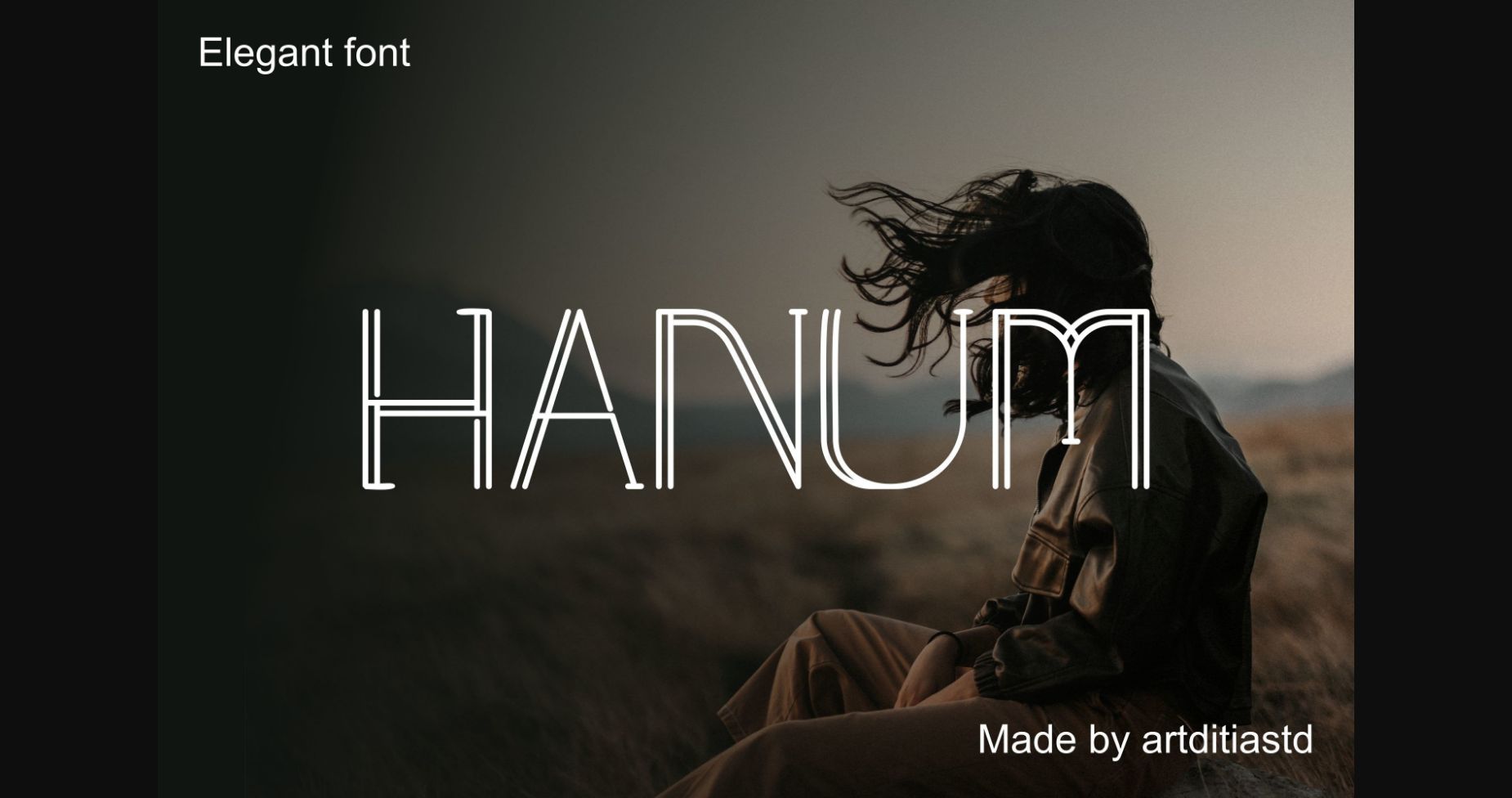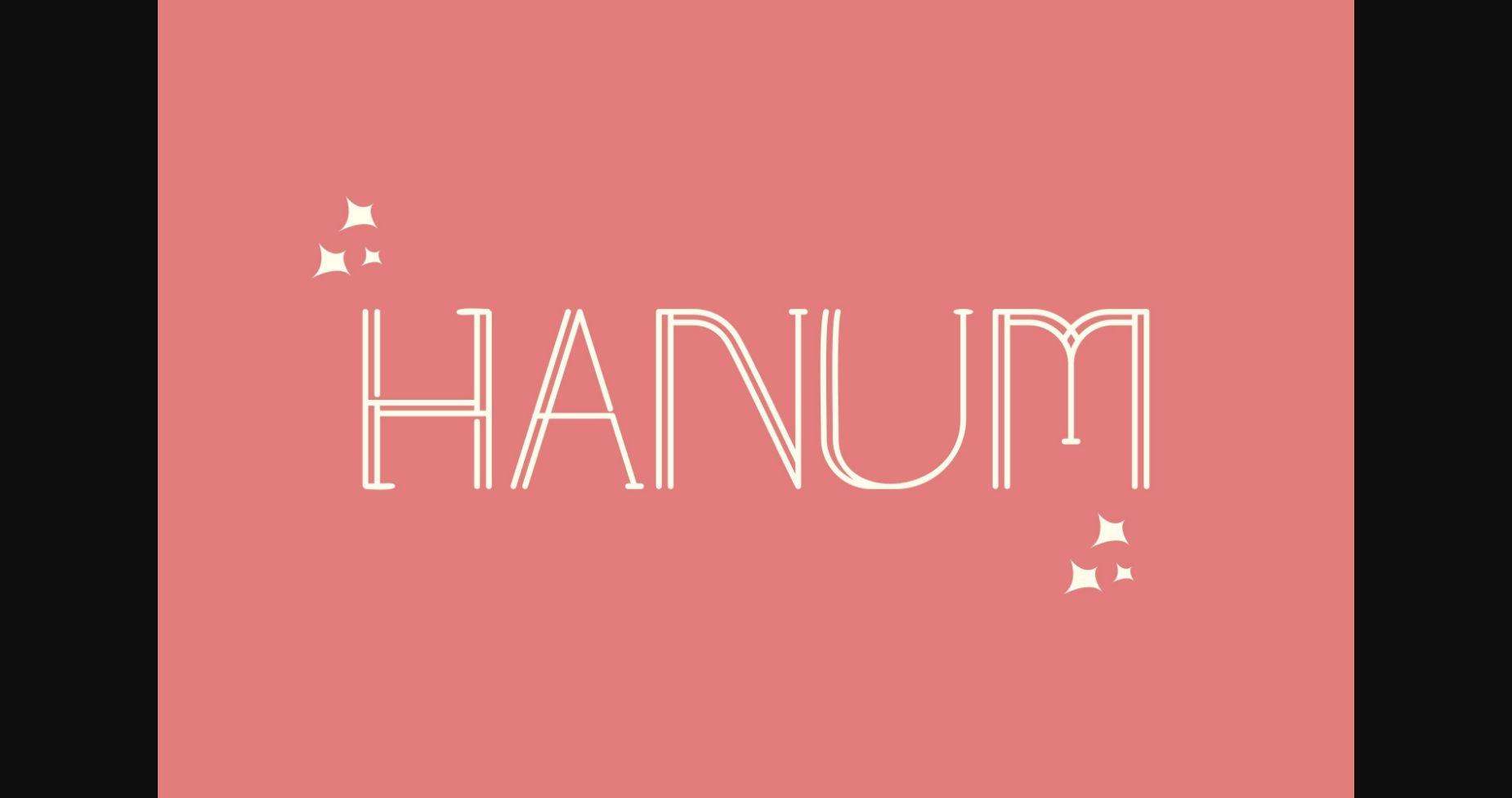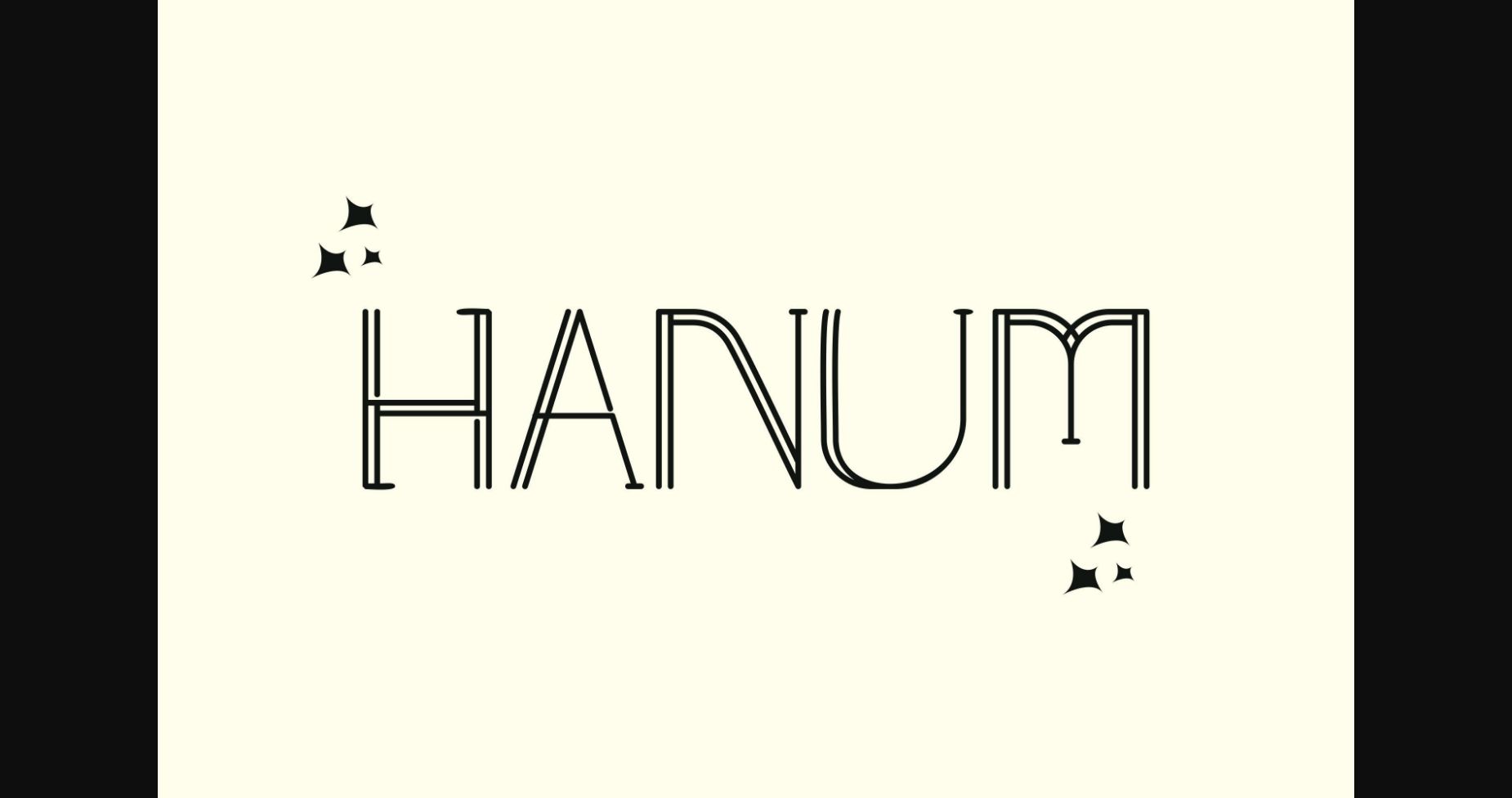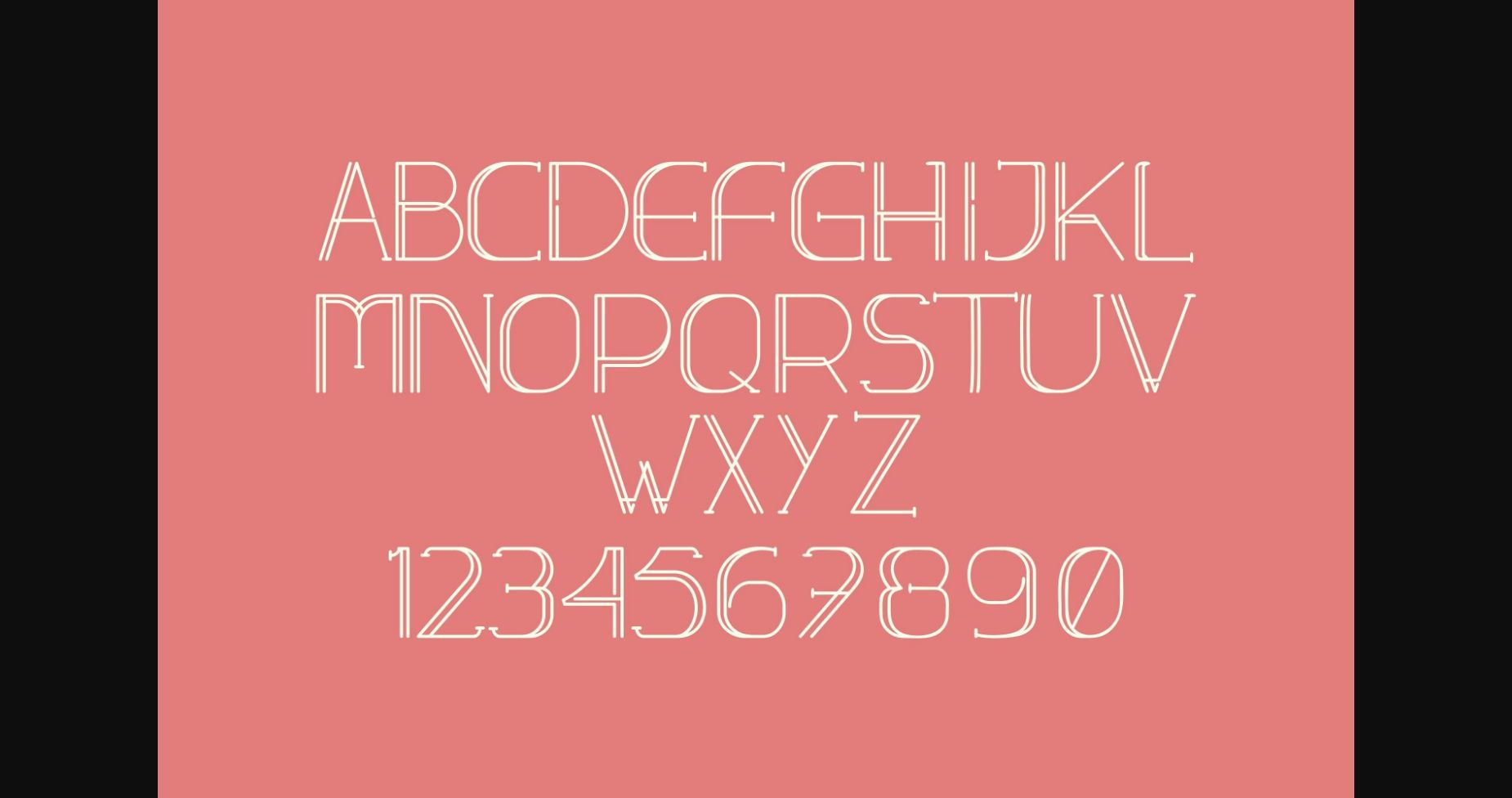
HomeSans Serif FontsHanum Font Sans Serif Fonts Hanum Font FacebookXPinterestWhatsApp 1 of 6 ... Hanum Font Poster 2... Hanum Font Poster 3... Hanum Font Poster 4... Hanum Font Poster 5... Hanum Font Poster 6... About Hanum Font Hanum is a unique and elegant display font. Trendy and stylish, this font will elevate each of your creations. DOWNLOAD NOW People also explored Junjex Font Elistabeta Script Font Love Earth Font Vamos Font Costerhon Font Umbridge Font Givonic Font Mathiga Font Pollenated Font 350 0 TagsHanumHanum Font Previous articleSpooky FontNext articleBenoglow Font LEAVE A REPLY Cancel reply Comment: Please enter your comment! Name:* Please enter your name here Email:* You have entered an incorrect email address! Please enter your email address here Website: Save my name, email, and website in this browser for the next time I comment. Personal Use Free Scarlove Personal Use Free Read more about this font Nottingsam Personal Use Free Read more about this font Gagalin Personal Use Free Read more about this font Peristiwa Font Personal Use Free Read more about this font BLOG Fonts That Capture the Spirit of New York City New York City is more than just a place—it’s an experience, a rhythm, a visual language... To increase your work productivity, choose the most readable fonts. Free Fonts Risk: Why Free Fonts Can Be Dangerous for Designers 5 Fonts That Will Dominate Design Trends in 2026